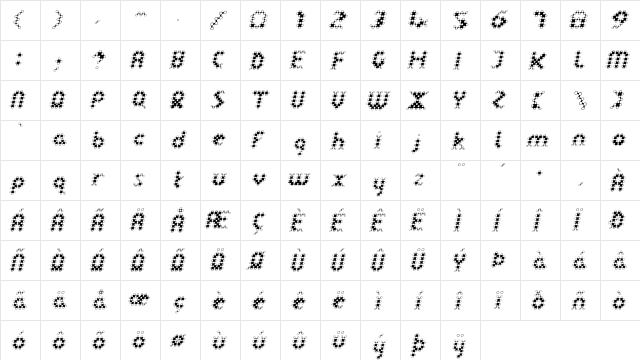
LinotypeDot Italic
Design Context for LinotypeDot Typeface
LinotypeDot celebrates the constraints of early digital type, turning pixel geometry into a distinctive and immediately recognisable style. Its italic angle brings a sense of urgency and motion to the letterforms.
A natural choice for retro game titles, chiptune music branding, 8-bit UI, and digital nostalgia projects.
Pro Tip: Pair LinotypeDot with flat colour palettes and simple geometric UI elements to reinforce its digital aesthetic.